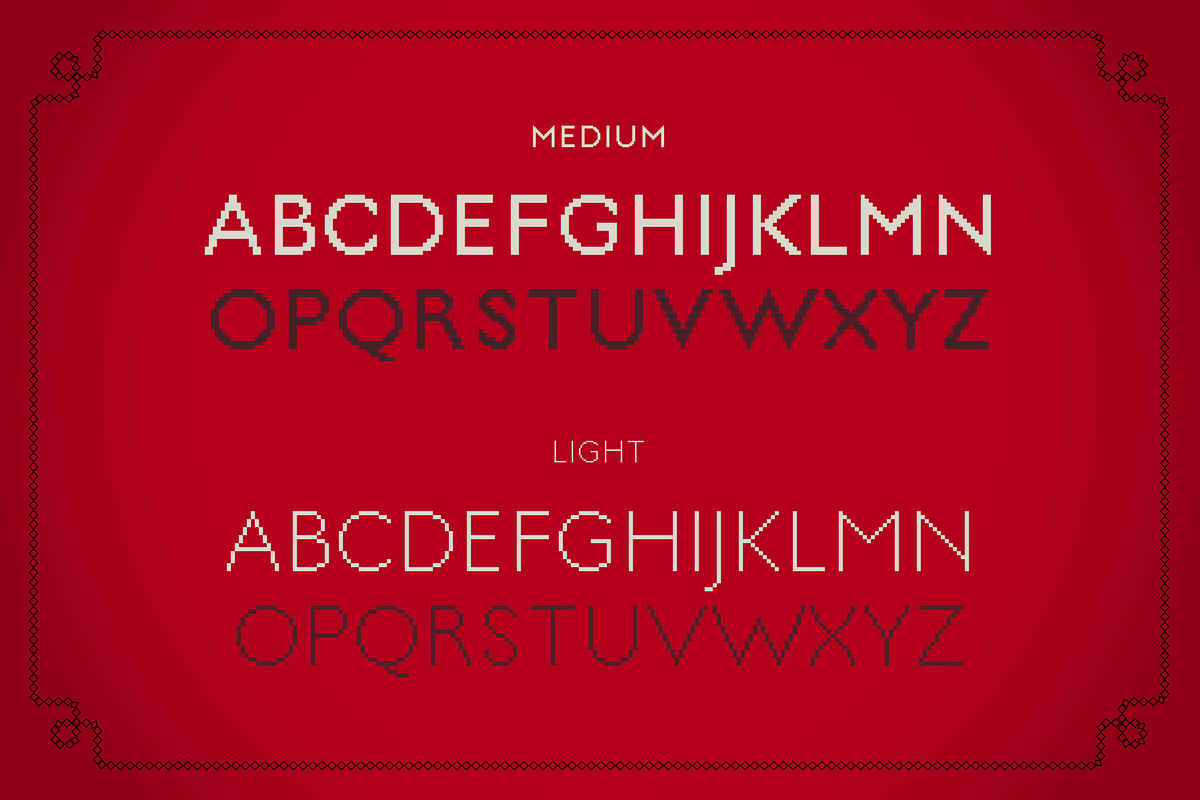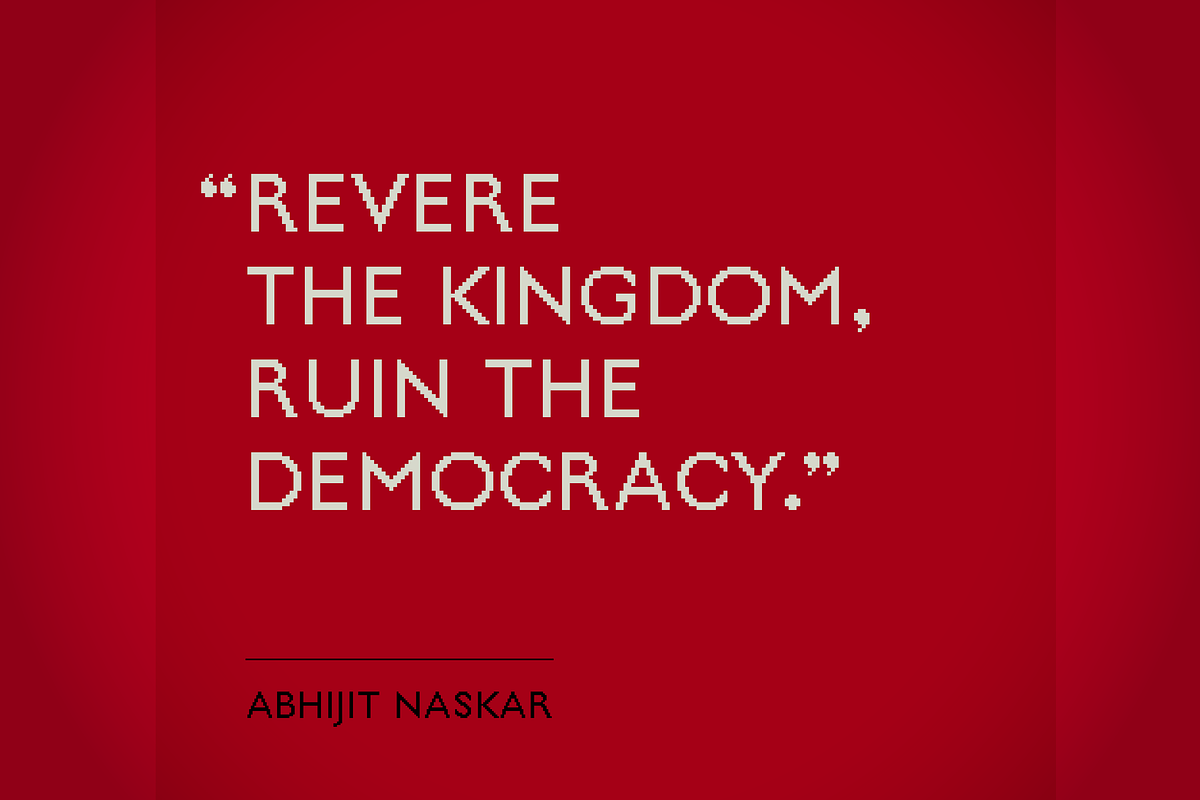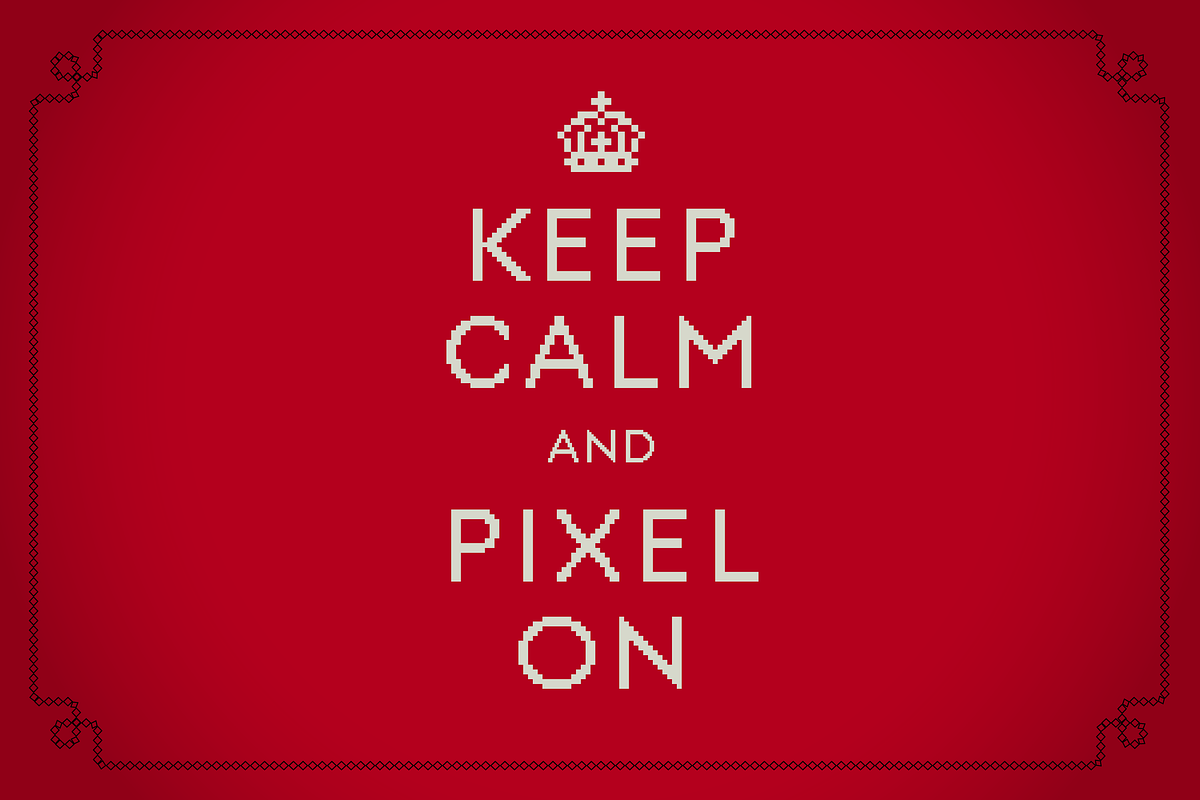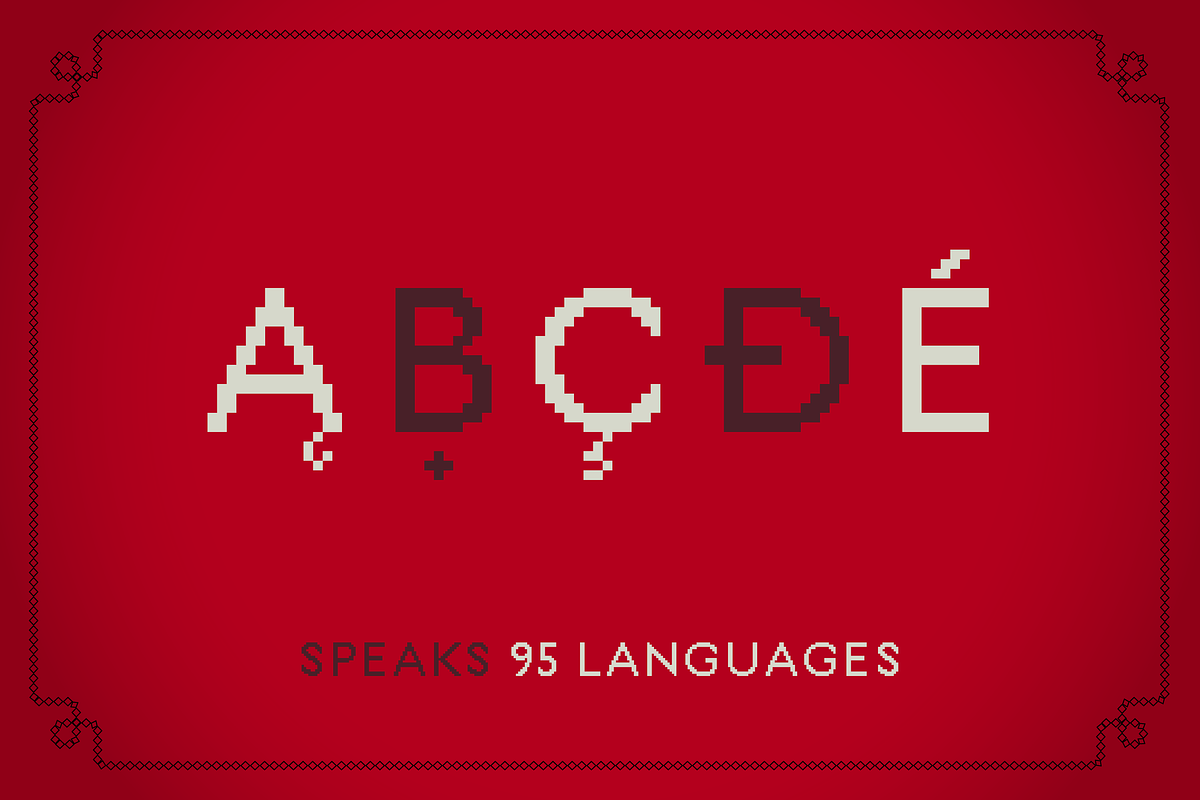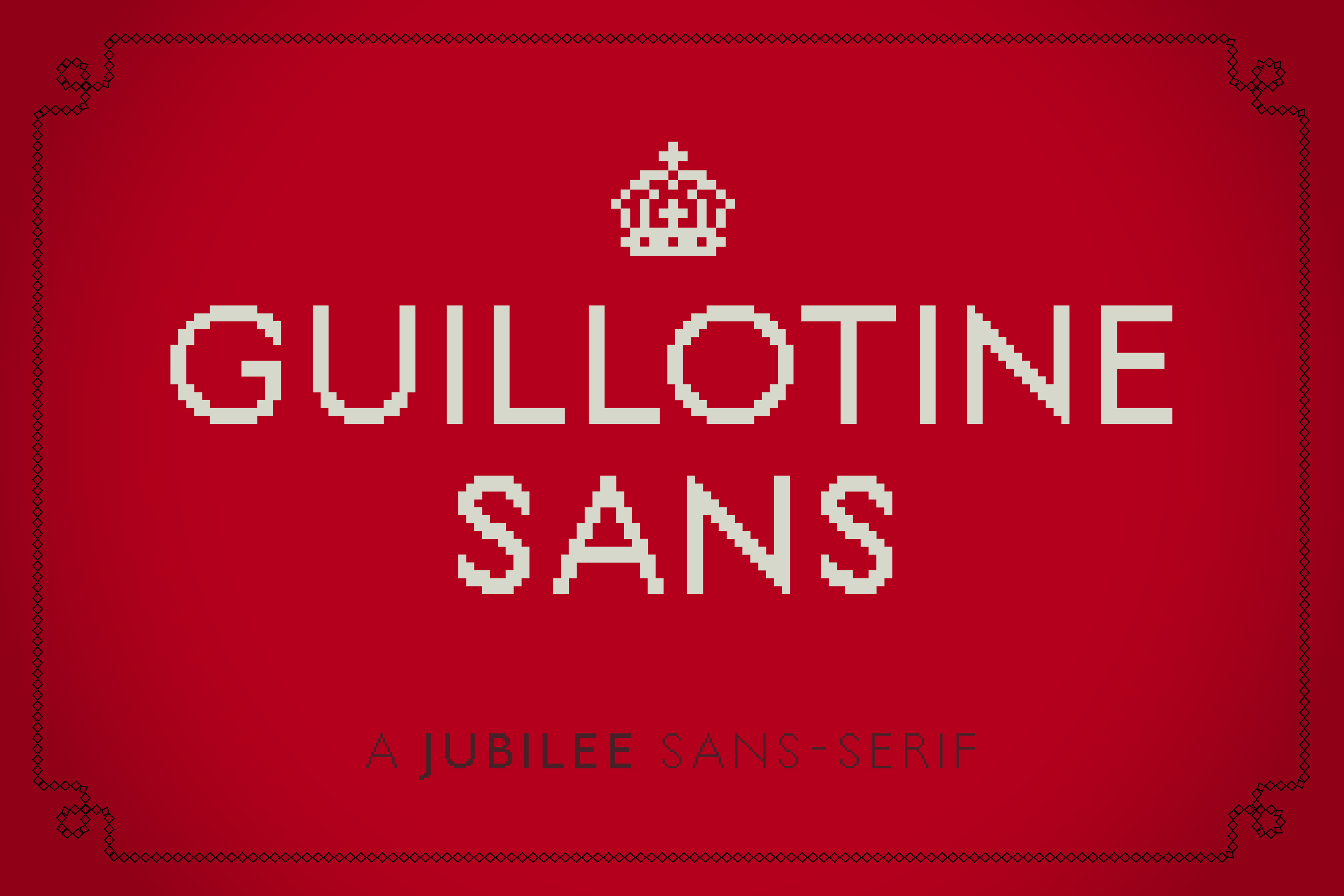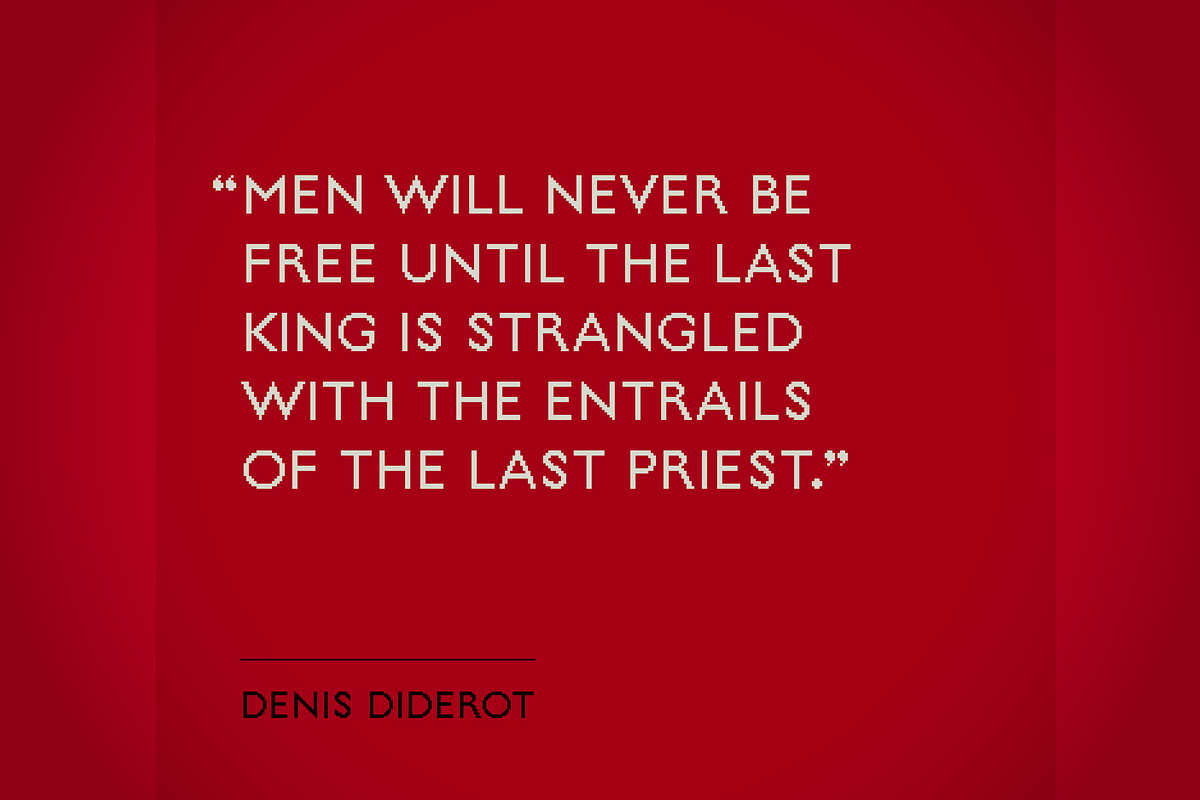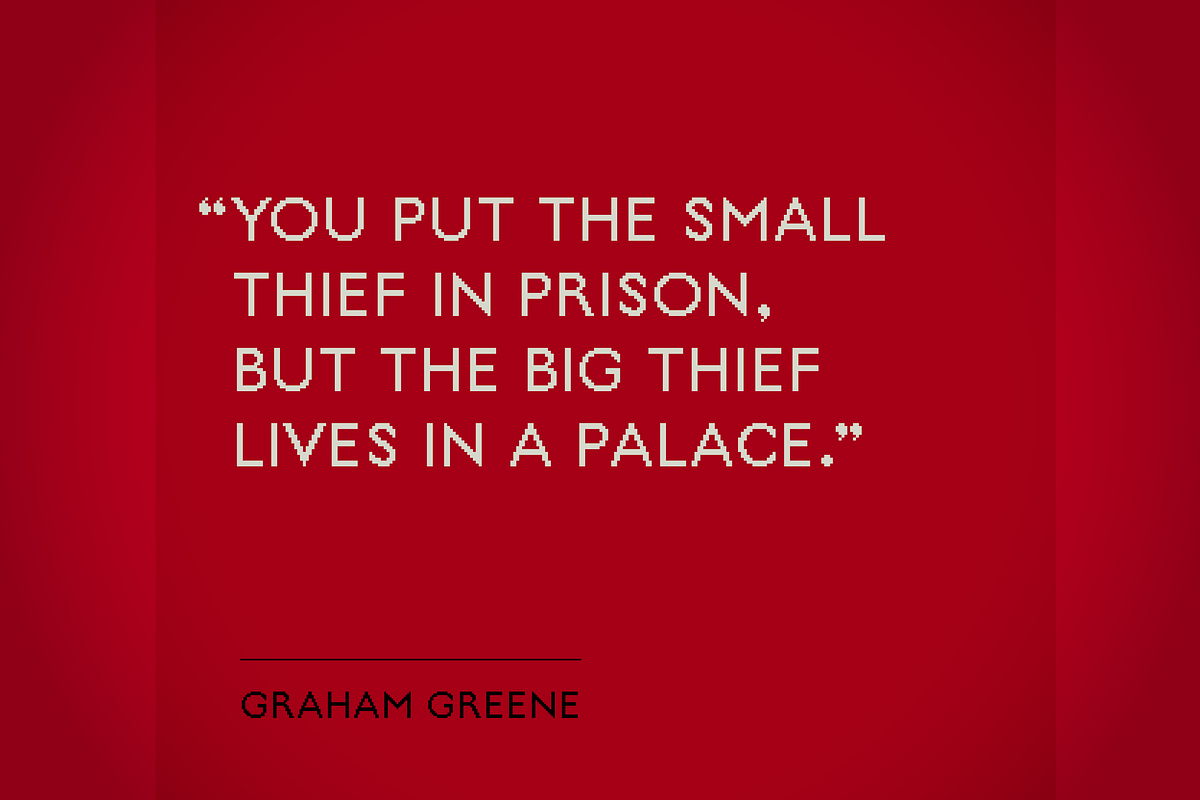
Guillotine Sans Pixel Font (4 fonts)
Guillotine Sans is a capitals only pixel font loosely based on Gill Sans.
- Two weights: Light and Medium.
- 280 glyphs with support for 95 languages.